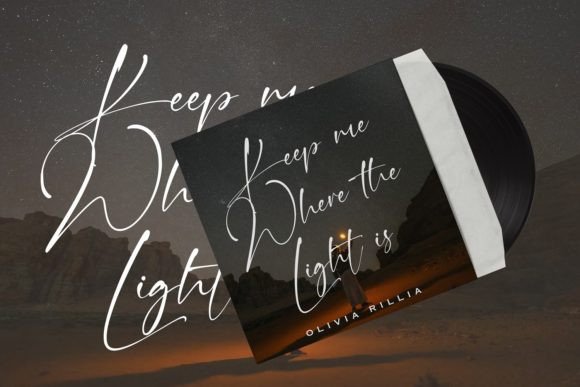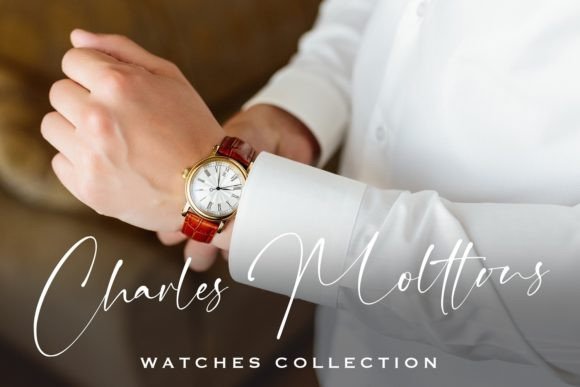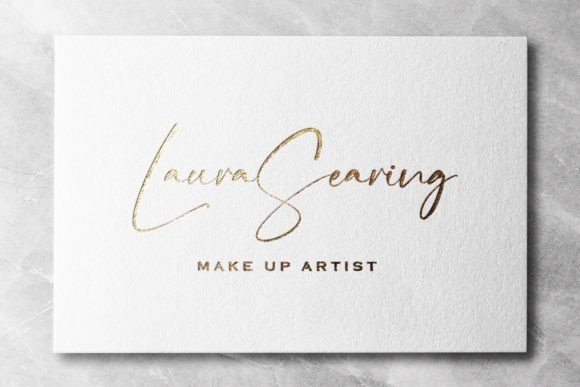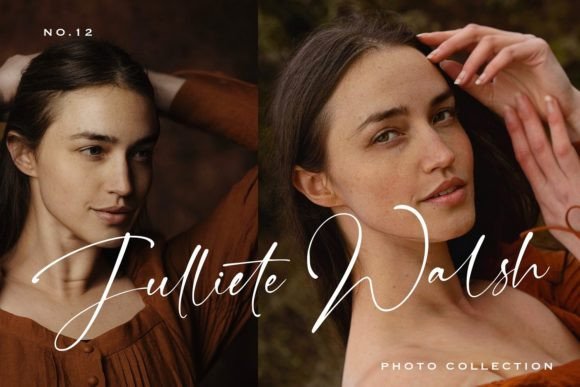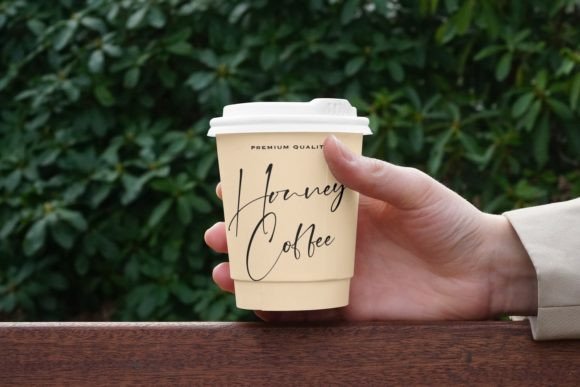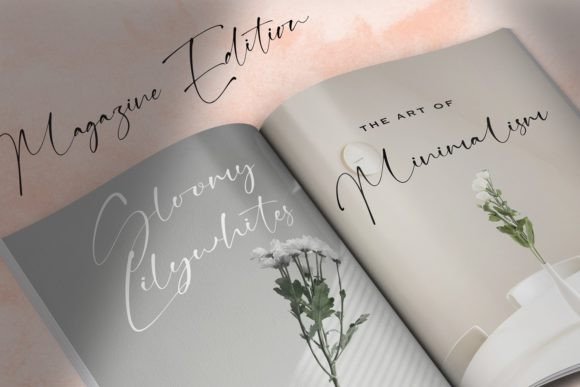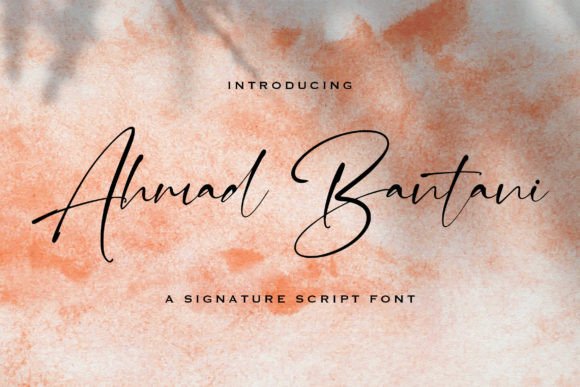
Ahmad Bantani Font: Elevate Your Designs with Elegance and Flair
In the world of typography, few fonts manage to capture the essence of elegance and sophistication as effortlessly as the Ahmad Bantani Font. This delicate, elegant, and flowing handwritten signature script font has been making waves in the design community, and for good reason. With its beautiful and well-balanced characters, Ahmad Bantani is the perfect addition to any creative project, capable of transforming even the most mundane ideas into stunning works of art.
The Characteristics of Ahmad Bantani Font
Ahmad Bantani Font is a true masterpiece of typographic design. Its flowing lines and delicate strokes evoke a sense of refinement and luxury, making it an ideal choice for designers looking to add a touch of sophistication to their work. Each character is meticulously crafted to ensure a perfect balance of form and function, resulting in a font that is not only aesthetically pleasing but also highly legible.
One of the standout features of Ahmad Bantani Font is its incredible versatility. Its elegant and flowing design makes it suitable for a wide range of applications, from wedding invitations and event branding to packaging and advertising. Whether you’re working on a high-end fashion campaign or a bespoke wedding invitation, Ahmad Bantani Font is sure to make your design stand out from the crowd.
Why Designers and Crafters Love Ahmad Bantani Font
So, what makes Ahmad Bantani Font so popular among designers and crafters? Here are just a few reasons why this font has become a favorite in the design community:
- Elegance and Sophistication: Ahmad Bantani Font exudes elegance and sophistication, making it perfect for high-end designs and luxury brands.
- Versatility: Its flowing design and well-balanced characters make it suitable for a wide range of applications, from digital to print.
- Easy to Read: Despite its delicate nature, Ahmad Bantani Font is highly legible, making it perfect for body text and headlines.
- Unique and Eye-Catching: With its unique character set and flowing lines, Ahmad Bantani Font is sure to grab attention and make your design stand out.
How to Use Ahmad Bantani Font in Your Designs
Ready to add Ahmad Bantani Font to your design arsenal? Here are a few tips on how to make the most of this stunning font:
- Pair it with Bold Fonts: Combine Ahmad Bantani Font with bold, sans-serif fonts for a striking contrast that adds visual interest to your design.
- Use it for Headlines and Titles: Take advantage of Ahmad Bantani Font’s elegance and sophistication by using it for headlines and titles.
- Add it to Your Brand Identity: Incorporate Ahmad Bantani Font into your brand identity for a touch of luxury and refinement.
In conclusion, Ahmad Bantani Font is a true gem in the world of typography. Its delicate, elegant, and flowing design makes it perfect for designers and crafters looking to add a touch of sophistication to their work. With its versatility, legibility, and unique character set, Ahmad Bantani Font is sure to elevate your designs and make them come alive. So why wait? Add Ahmad Bantani Font to your design toolkit today and experience the power of elegant typography for yourself.
Key Takeaways
- Ahmad Bantani Font is a delicate, elegant, and flowing handwritten signature script font.
- It has beautiful and well-balanced characters, making it suitable for a wide range of designs.
- The font is perfect for high-end designs, luxury brands, and creative projects.
- It’s highly legible and versatile, making it suitable for both digital and print applications.